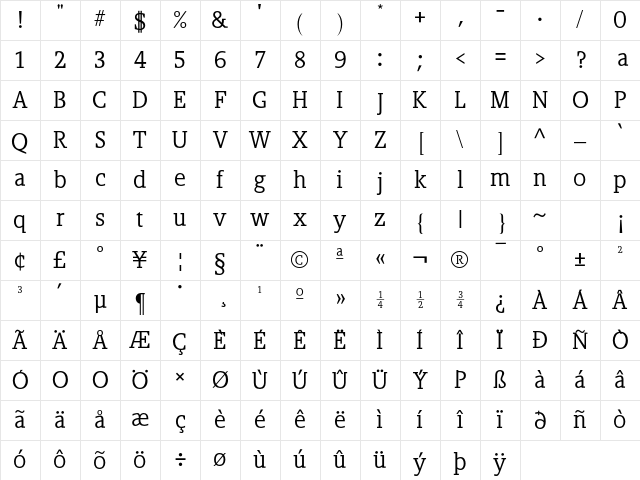
HoTomLL Regular Free Font
HoTomLL Regular
Design Context for HoTomLL
HoTomLL is a composed and adaptable typeface that performs quietly and consistently across a wide range of design contexts.